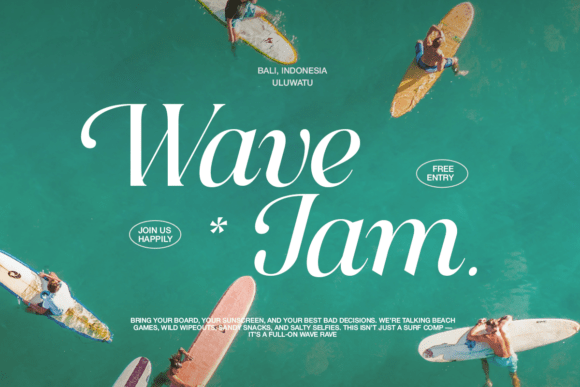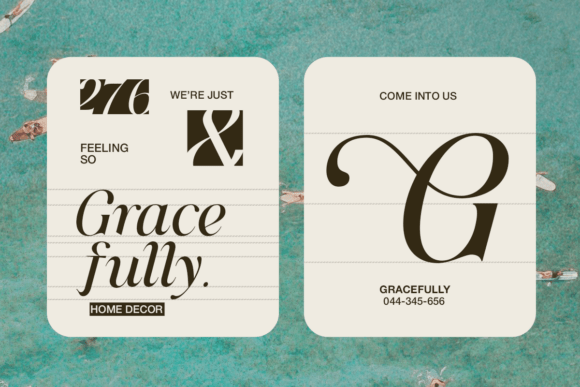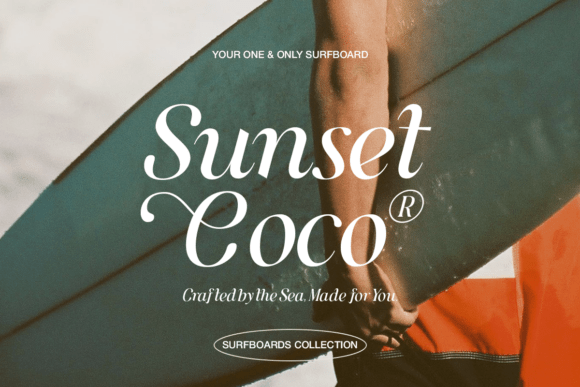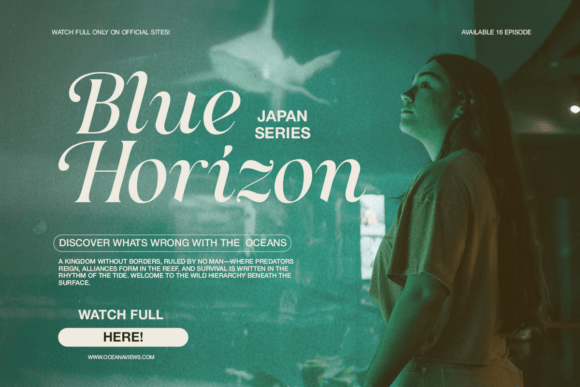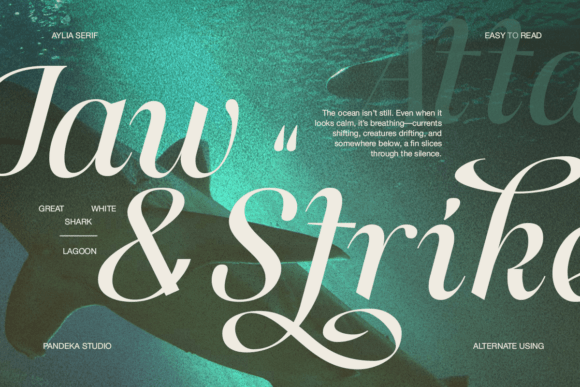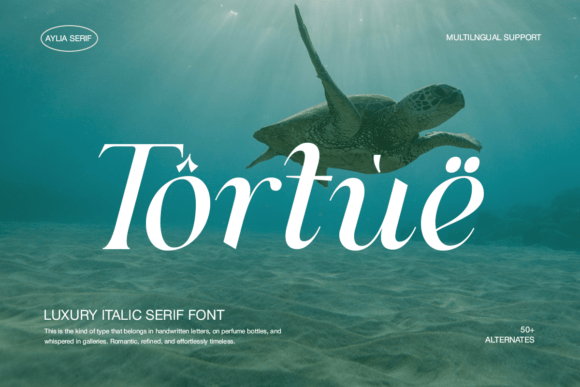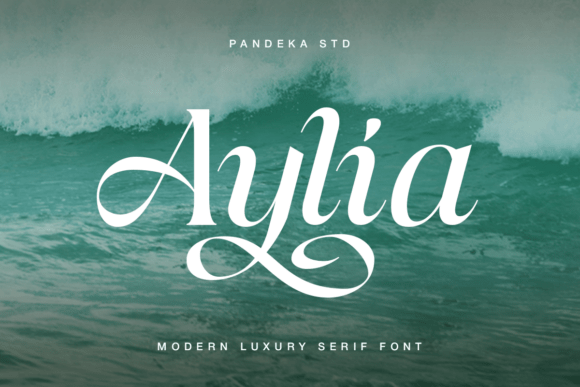
Aylia Font: Elevate Your Design with Coastal Sophistication
Are you looking for a font that exudes luxury, elegance, and modern flair? Look no further than Aylia, a stunning serif font that combines the best of seaside sophistication with contemporary style. Designed to capture the essence of coastal refinement, Aylia is perfect for brands that want to convey warmth, class, and confidence.
The Essence of Aylia
Aylia is more than just a font – it’s an experience. With its smooth curves, flowing alternates, and clean yet expressive structure, this luxurious serif font is sure to elevate your design to new heights. Whether you’re working on a fashion label, surf-inspired branding, wellness packaging, or upscale editorial spreads, Aylia adapts with timeless charm.
Key Features of Aylia
- Multilingual Support: Aylia offers full multilingual support, making it perfect for global brands that want to communicate with their audience in multiple languages.
- Stylistic Alternates: With stylistic alternates, you can add an extra layer of creativity to your design, giving you more flexibility and options.
- Swash Details: Aylia’s swash details add a touch of elegance and sophistication to any design, making it perfect for high-end brands.
Aylia is designed with designers and crafters in mind. Its versatility and range make it perfect for a wide range of applications, from:
- Fashion Labels: Aylia’s luxurious feel makes it perfect for high-end fashion brands that want to convey sophistication and elegance.
- Surf-Inspired Branding: Aylia’s coastal vibe makes it perfect for surf-inspired brands that want to capture the laid-back, beachy feel.
- Wellness Packaging: Aylia’s clean and expressive structure makes it perfect for wellness brands that want to convey a sense of calm and serenity.
- Upscale Editorial Spreads: Aylia’s timeless charm makes it perfect for upscale editorial spreads that want to convey a sense of luxury and sophistication.
Why Choose Aylia?
So why choose Aylia over other fonts? Here are just a few reasons:
- Unique and Memorable: Aylia’s unique blend of seaside elegance and modern flair makes it a memorable and distinctive font.
- Highly Versatile: Aylia’s range and flexibility make it perfect for a wide range of applications and designs.
- Effortless Elegance: Aylia adds effortless elegance to any design, making it perfect for brands that want to convey sophistication and luxury.
In conclusion, Aylia is a luxurious serif font that combines seaside elegance with modern flair. With its smooth curves, flowing alternates, and clean yet expressive structure, Aylia captures the essence of coastal sophistication. Perfect for designers and crafters, Aylia offers full multilingual support, stylistic alternates, and swash details, making it the perfect choice for brands that want to communicate warmth, class, and confidence.